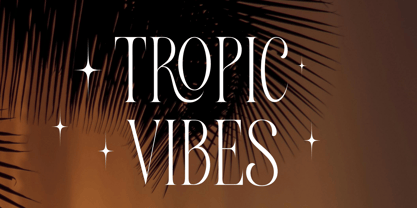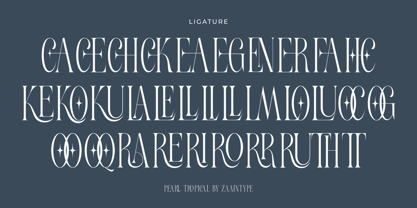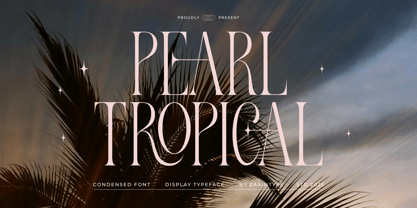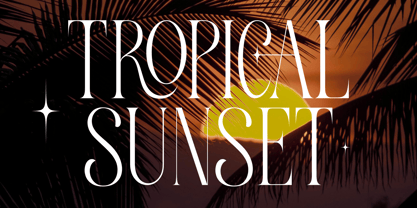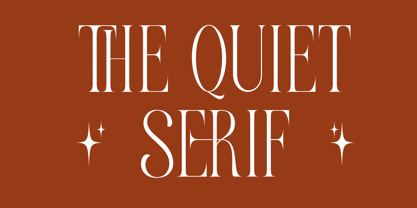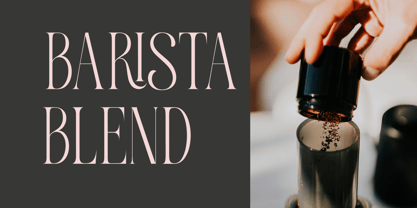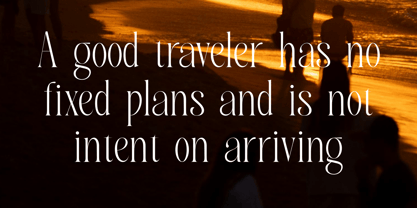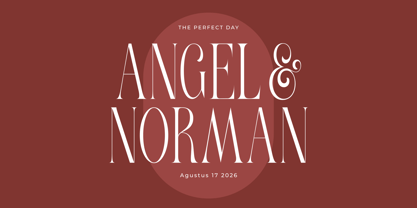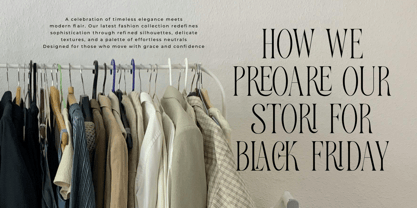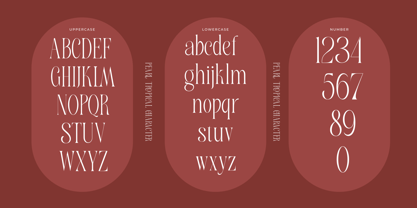
Pearl Tropical
by Zaain Type
The Pearl Tropical Font Family was designed by Ju Naen and published by Zaain Type. Pearl Tropical contains 2 styles and family package options.
Pearl Tropical is a semi-condensed serif font that blends timeless elegance with a touch of exotic warmth. With refined details and graceful proportions, it's perfect for branding, packaging, and editorial design that seeks a sophisticated tropical vibe